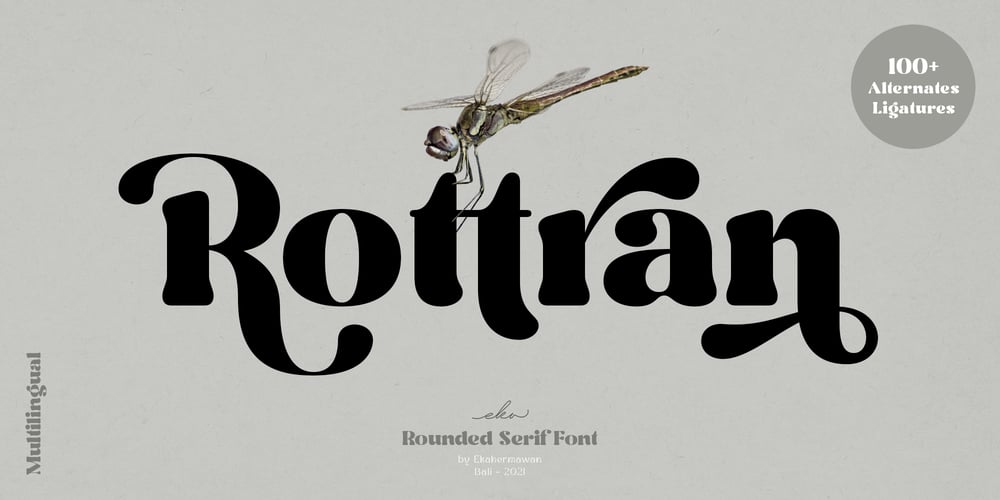
Rottran Font Family was designed by Putu Eka Hermawan and published by Ekahermawan. Rottran contains 1 styles and family package options. Rottran is a rounded serif font. Rottran is including with more than 100+ alternates characters (PUA Encoded) and ligatures characters that give you a wide range of typographic design results. Rottran is a versatile font for many design project such as logo design, branding, poster, magazines, labels, merchandise, invitation, presentation, advertising and so much more!FEATURES:OpenType supportPlayfull to use (with ligatures and alternates options)Multilingual supportPUA EncodedIf you need support or more information about this itemplease kindly contact me :ekahermawanputu@gmail.comThank you so muchI really hope you enjoy when using it!